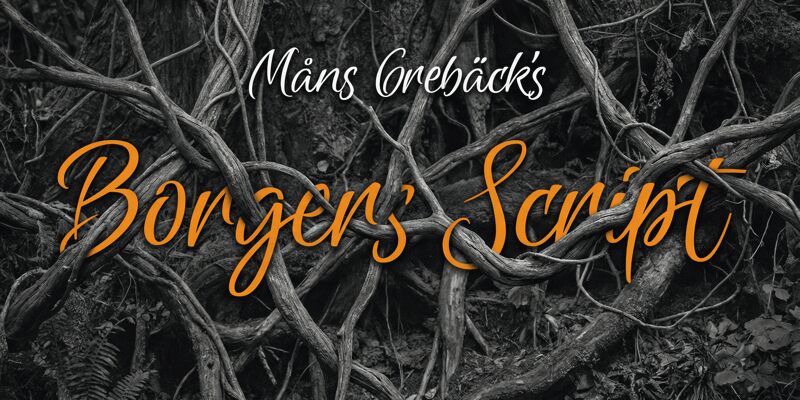
Borgers Script font is a refined free font by Måns Grebäck that speaks with beauty. Its exquisite design is highlighted by smooth curves, elegant letterforms, and consistent line weights and style. Those qualities make it a great choice for your print projects that require the touch of both beauty and elegance. This handwritten typeface reflects sophisticated modern scripts with a tight structure and contemporary flair. Download Borgers Script and let your imaginations run wild by creating splendid typography items.
Whenever you have a project that requires beauty, elegance, and sophistication, consider giving Borgers a try. It’s especially great for feminine branding packages and will do great in logos and brand names for children’s clothing, beauty services, perfumes, and more. It would also be perfect for invitation cards, greeting cards, and journal covers. You can also try and use its single weights in book covers and packaging designs. If you want to use it for web purposes, it can be great for website names, headings, and titles.
Borgers Script is a relaxed handwritten font featuring a light and friendly rhythm. Its natural flow gives the impression of being written in one continuous motion, exuding a sense of leisure. The letterforms are smooth and slightly bouncy, with gentle connections and open shapes that enhance readability.